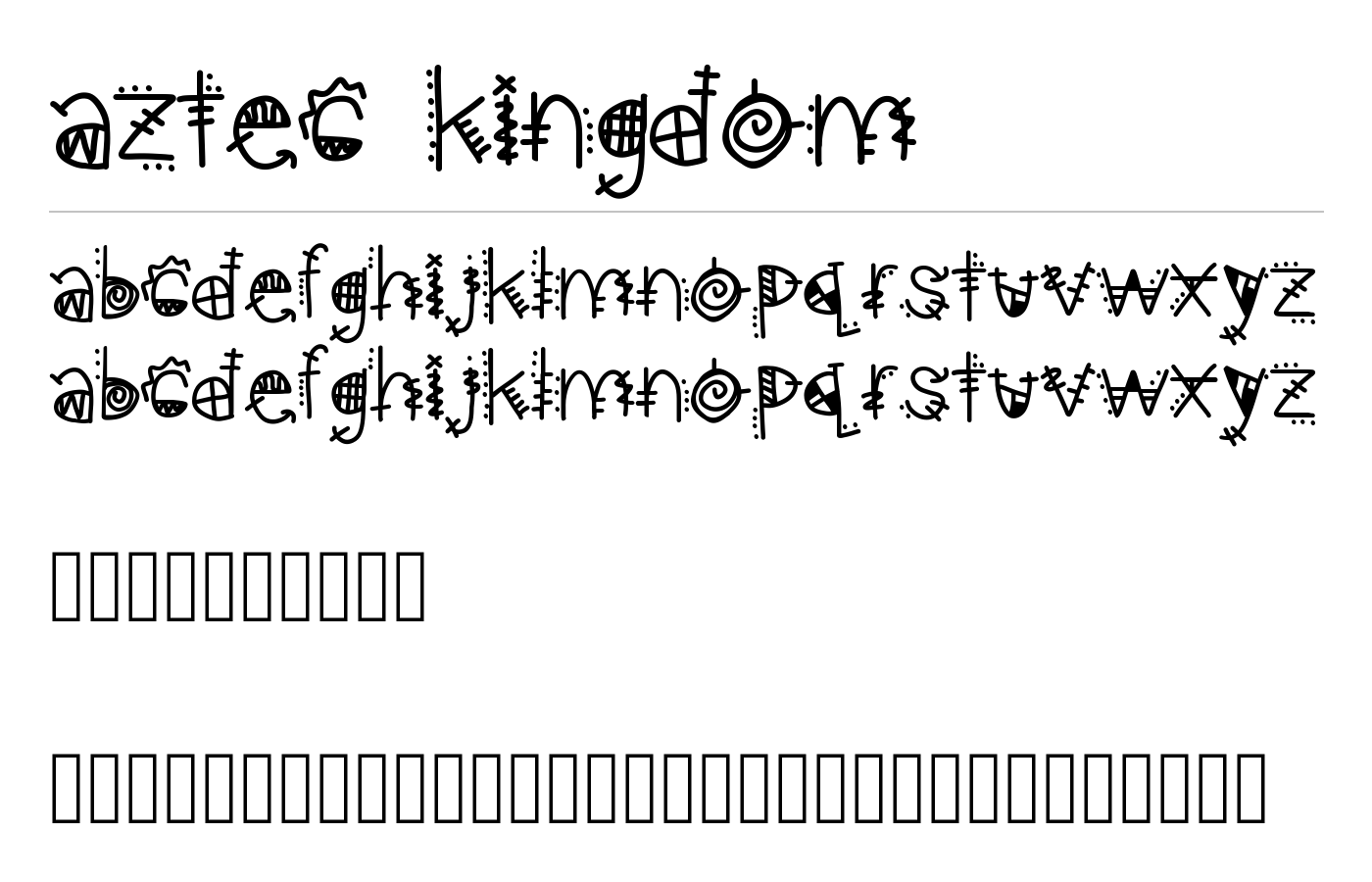
Aztec Kingdom is a playful and decorative handwritten font that draws inspiration from tribal and ancient motifs, featuring quirky shapes and dot patterns that give it a whimsical, hand-crafted feel. Its irregular lines and distinctive embellishments make it perfect for creative projects, children’s books, posters, and designs seeking an adventurous, artistic vibe with a touch of cultural flair. This font adds a unique, expressive personality that stands out in informal and imaginative contexts.
aztec kingdom Font
About aztec kingdom Font